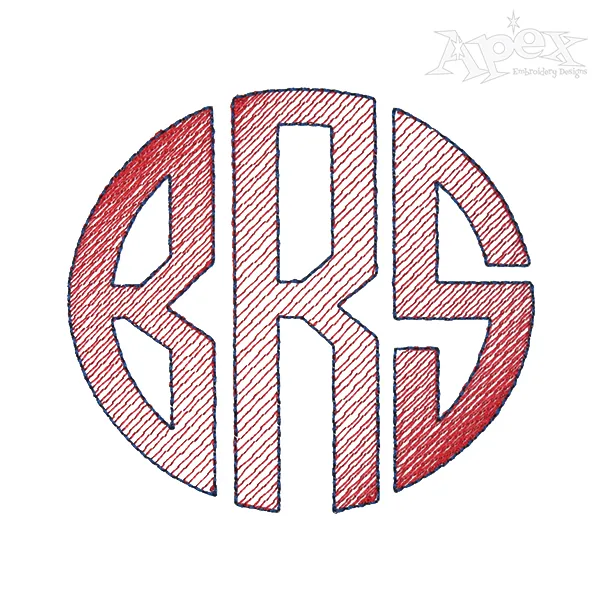
Circle Full Gradient Sketch Monogram Embroidery Font
Born from a desire to bring breathability and contemporary fine-art texture to traditional heraldic silhouettes, the Circle Full Gradient Sketch Monogram Embroidery Font reimagines classic personalized monogramming. Rather than suffocating fabric beneath stiff, impenetrable planes of solid thread, this design employs an artistic, luminous sketch fill that sweeps across each circular letterform. The result is an ethereal play of light and shadow—reminiscent of architectural cross-hatching and sunlit linen textures—infusing every stitched piece with understated luxury, movement, and graceful modern elegance.
Project Ideas for Circle Full Gradient Sketch Monogram
Thanks to its lightened thread footprint and open-weave nature, this monogram is unusually versatile across a range of textile weights:
- Luxury Table Linens & Cocktail Napkins: Add bespoke sophistication to crisp linen or hemstitched cotton without causing the fabric to curl or pucker.
- Bespoke Resort Wear & Cover-Ups: Personalize gauzy tunics, chambray weekenders, and straw-accented beach totes with a breezy, coastal aesthetic.
- Heirloom Bedding & Nursery Accents: Stitch soft, non-abrasive monograms onto delicate baby blankets, pillow shams, and waffle-weave duvets where gentle hand-feel is essential.
- Bridal Party Gifting: Create refined, photogenic mementos by adorning waffle robes, cosmetic pouches, and bridal clutches.
The self-contained circular silhouette offers natural balance wherever it is stitched. To achieve balanced, designer-grade results across your projects, consider these artisan placements:
- Dinner Napkins: Position 1.5 to 2 inches diagonally from the lower-right corner point for an effortless drape when folded or ringed.
- Linen Shirts & Pullovers: Center the monogram along the left-chest line, roughly 7 to 8 inches down from the shoulder seam and aligned with the collar point.
- Canvas Totes & Weekend Duffles: Float the 4-inch motif dead-center between straps on the front panel to create an anchored, high-end retail look.
- Bath & Hand Towels: Center the 3-inch or 4-inch design 1.5 inches above the woven decorative band or hem for timeless powder-room presentation.
Circle Full Gradient Sketch Monogram Craft & Letterform Details
Digitizing sketch embroidery is an exercise in restraint and intentional needle pathing. Instead of standard multi-directional tatami fills, this font utilizes deliberately sequenced stroke paths that gradually shift in density from edge to edge. The outer circular contour establishes crisp, unmistakable definition, while the interior hatch-stitch gradient allows the underlying fabric weave to peek through, creating textural depth without bulk.
Every curve, intersecting angle, and tapering thread line has been manually compensated to mitigate pull distortion. The letters remain perfectly spherical after stitch-out, offering the tactile authenticity of hand-drawn illustration with the flawless consistency only master digital craftsmanship can achieve.